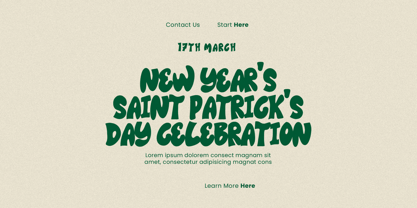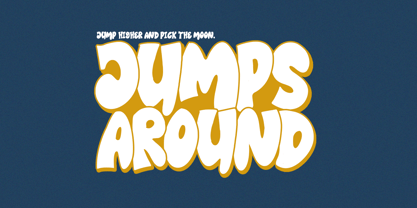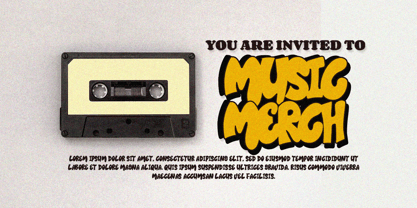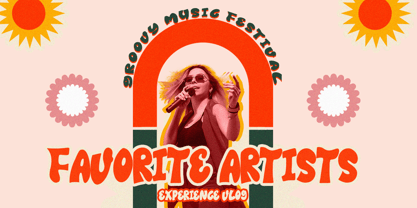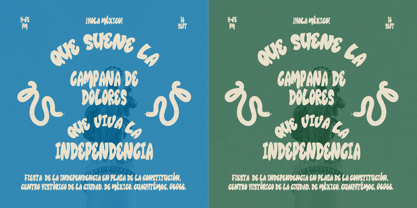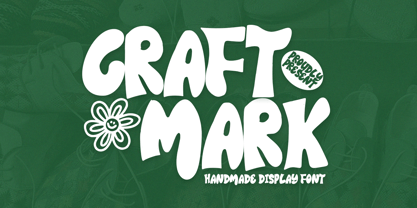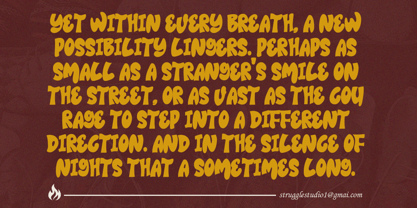
Craft Mark
by Struggle Studio
The Craft Mark Font Family was designed by Andri Kurniawan and published by Struggle Studio. Craft Mark contains 2 styles and family package options. More about this family
Craft Mark is a playful handmade display font that brings a cheerful and friendly vibe to your designs. With bold, rounded letterforms and quirky shapes, this font feels casual, fun, and approachable. The hand-drawn style makes it perfect for creative projects such as posters, packaging, logos, children’s books, social media graphics, and DIY-inspired branding. Its unique, slightly irregular strokes give it a natural and authentic look, while the lively design ensures your message stands out with personality and charm.